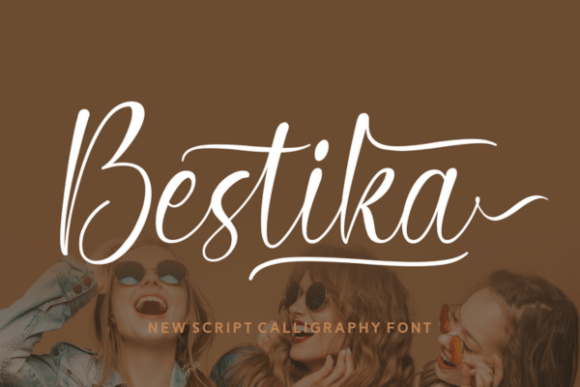
Introducing Bestika Font: The Ultimate Modern Script Calligraphy
In the world of typography, fonts play a crucial role in conveying messages, expressing emotions, and creating a lasting impression. Among the numerous fonts available, Bestika Font stands out as a modern script calligraphy that exudes charm and energy with every stroke. This beautiful font is designed to bring a touch of sophistication and playfulness to various design projects, making it an excellent choice for designers and brands looking to elevate their visual identity.
What Makes Bestika Font Special?
Bestika Font is a modern script calligraphy that boasts long, flowing swashes and clean curves, making it a perfect blend of elegance and playfulness. The font’s unique features include:
- Long, flowing swashes: Bestika Font’s swashes add a touch of drama and flair to any design project, making it ideal for headlines, titles, and emphasis text.
- Clean curves: The font’s clean curves provide a smooth and sophisticated look, making it suitable for body text, paragraphs, and descriptions.
- Trendy handwritten feel: Bestika Font’s modern script calligraphy style gives it a trendy and approachable feel, perfect for designs that require a personal touch.
Use Cases for Bestika Font
Bestika Font is a versatile typeface that can be used in various design projects, including:
Fashion Branding
Bestika Font is an excellent choice for fashion brands looking to create a stylish and sophisticated visual identity. The font’s elegant swashes and clean curves make it perfect for:
- Logos and logotypes
- Headlines and titles
- Product descriptions and packaging
Lifestyle Branding
Lifestyle brands can also benefit from using Bestika Font, as it adds a touch of warmth and approachability to their visual identity. The font is suitable for:
- Social media graphics and posts
- Blog titles and headings
- Branding materials, such as business cards and brochures
Personal Stationery
Bestika Font is also perfect for personal stationery, such as:
- Wedding invitations and stationery
- Personalized journals and planners
- Handwritten notes and letters
Social Media Graphics
Bestika Font can also be used to create engaging social media graphics, including:
- Instagram posts and stories
- Facebook posts and ads
- Twitter headers and posts
Benefits of Using Bestika Font
Using Bestika Font in your design projects offers several benefits, including:
- Elegance and sophistication: Bestika Font adds a touch of elegance and sophistication to any design project, making it perfect for brands looking to create a high-end visual identity.
- Versatility: The font’s versatility makes it suitable for various design projects, from fashion branding to personal stationery.
- Readability: Bestika Font’s clean curves and flowing swashes ensure excellent readability, making it easy to read and understand.
Tips for Using Bestika Font Effectively
To get the most out of Bestika Font, follow these tips:
- Use it sparingly: Bestika Font’s elegance and sophistication can be overwhelming if used excessively. Use it sparingly to create a lasting impression.
- Experiment with colors: Bestika Font looks great in various colors, so experiment with different hues to find the perfect match for your brand.
- Pair it with other fonts: Bestika Font can be paired with other fonts to create a unique and visually appealing typography.
Bestika Font is a modern script calligraphy that radiates charm and energy with every stroke. Its long, flowing swashes and clean curves make it a perfect blend of sophistication and playfulness, suitable for various design projects. Whether you’re designing for fashion, lifestyle branding, personal stationery, or social media graphics, Bestika Font brings a trendy handwritten feel that elevates your message with elegance and flair.